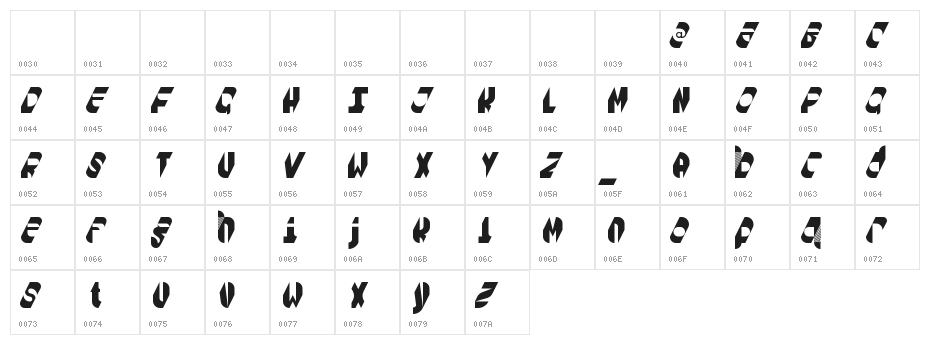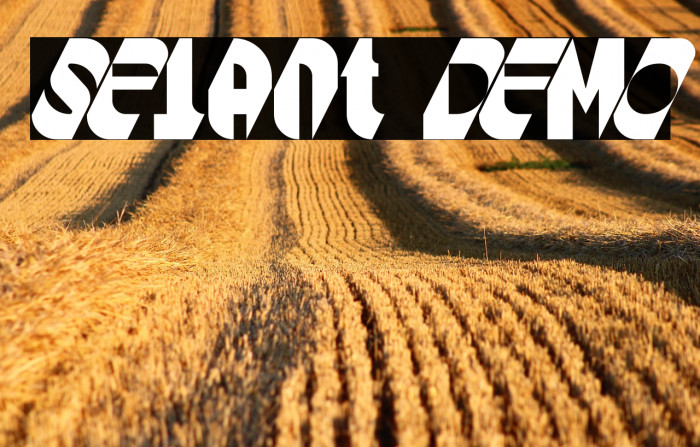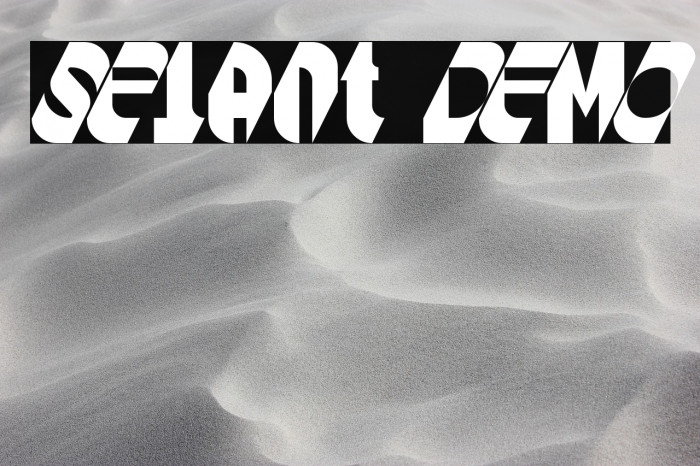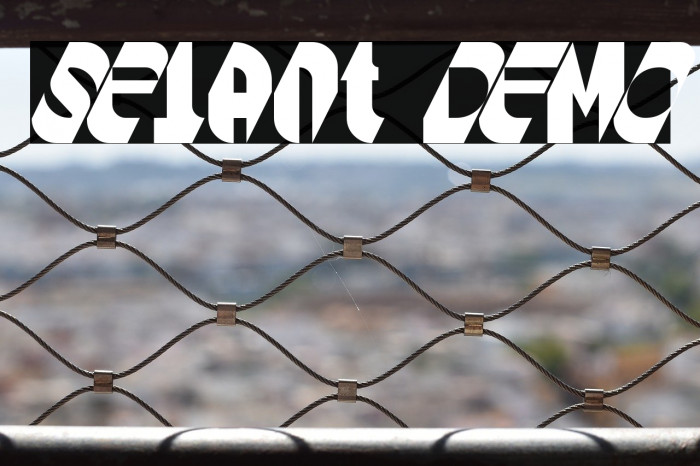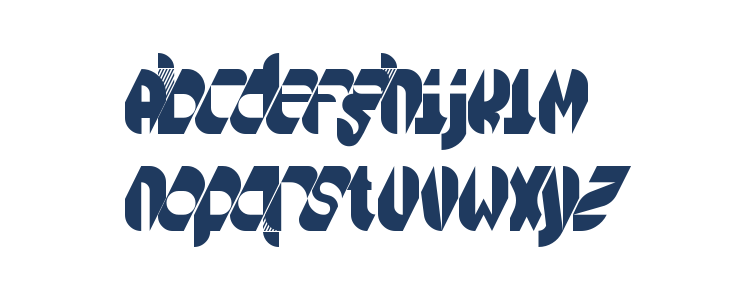
Selant DEMO Font
Selant DEMO Description
This font features a bold, geometric design with sharp angles and a futuristic aesthetic. The characters are constructed with thick strokes and unique cut-out shapes, giving them a dynamic and modern appearance. The uppercase and lowercase letters maintain a consistent style, with a strong emphasis on angular forms and negative space. The font's boldness and distinctive style make it stand out, suitable for projects that require a striking visual impact. The design is highly stylized, with each letterform exhibiting a sense of movement and energy.
| Use Case | Logos, Headlines, Posters |
| Proposed Projects | Ideal for branding, posters, album covers, and any project needing a modern, eye-catching typeface. |